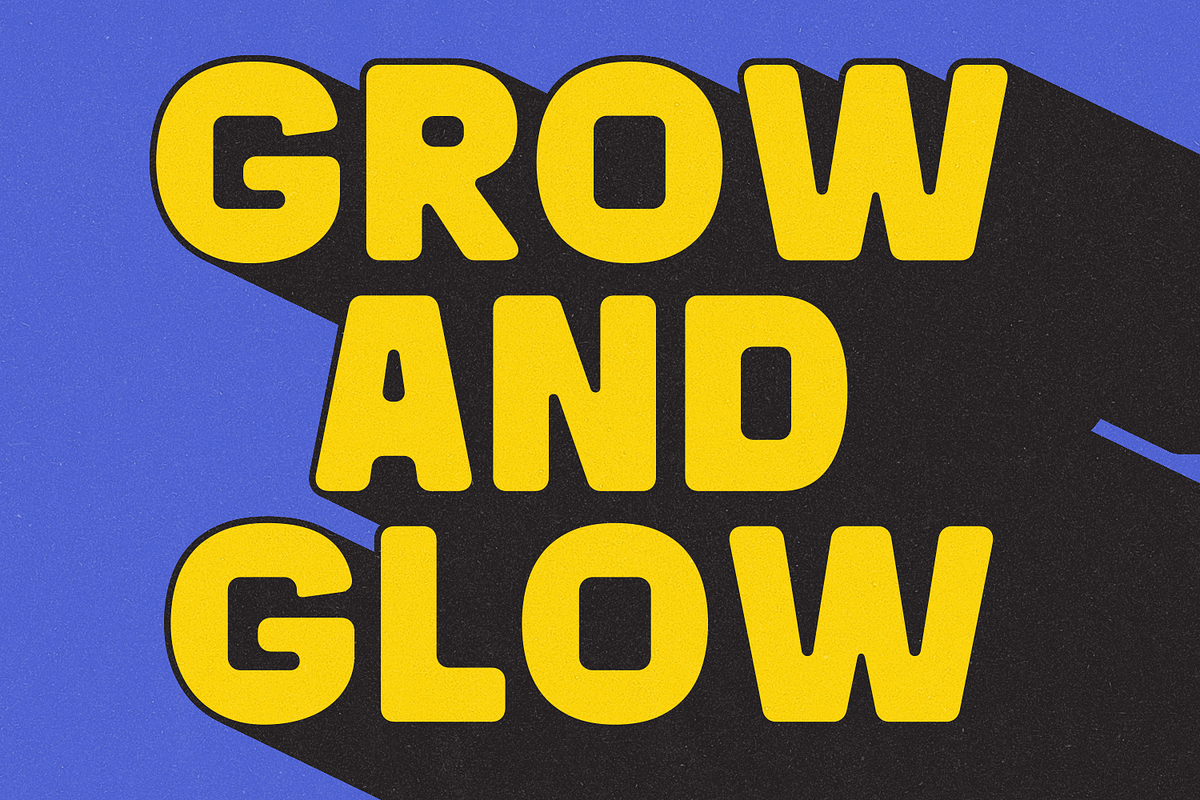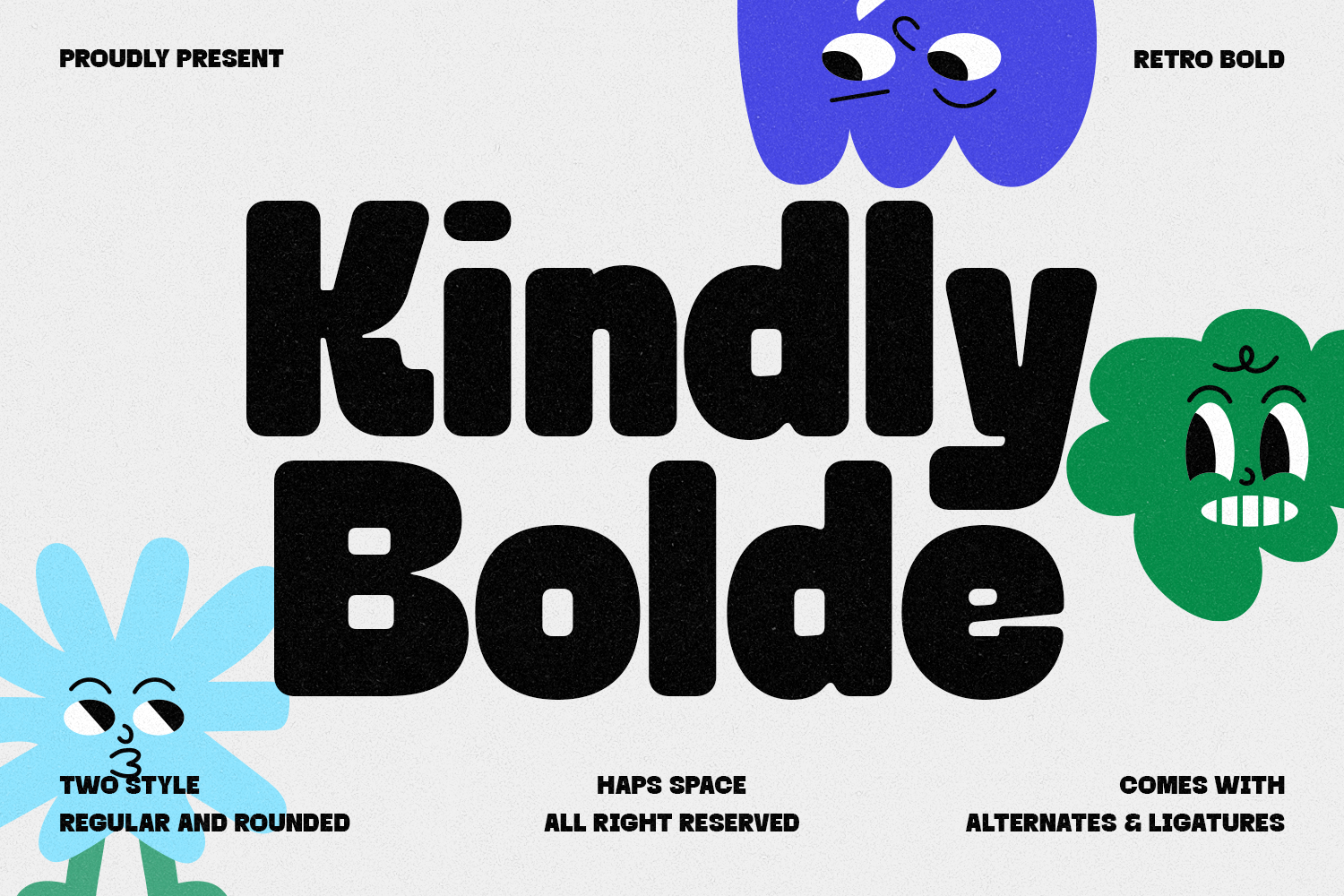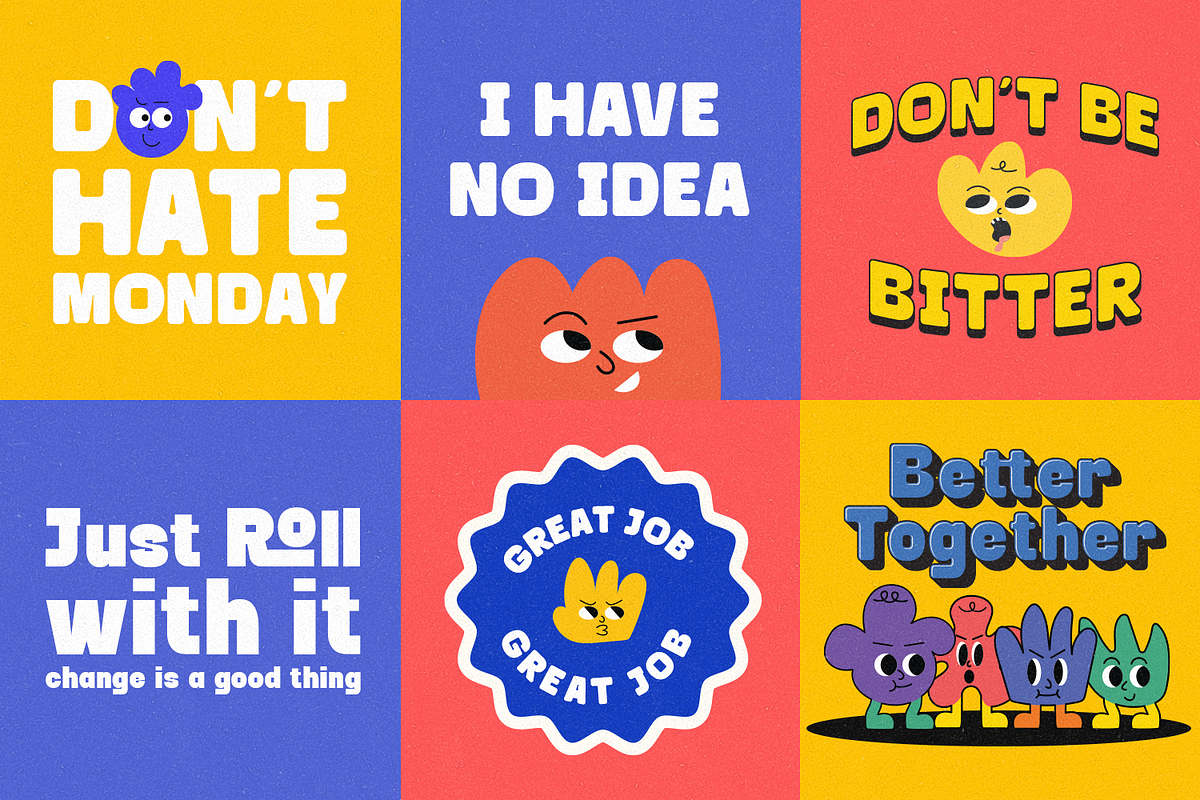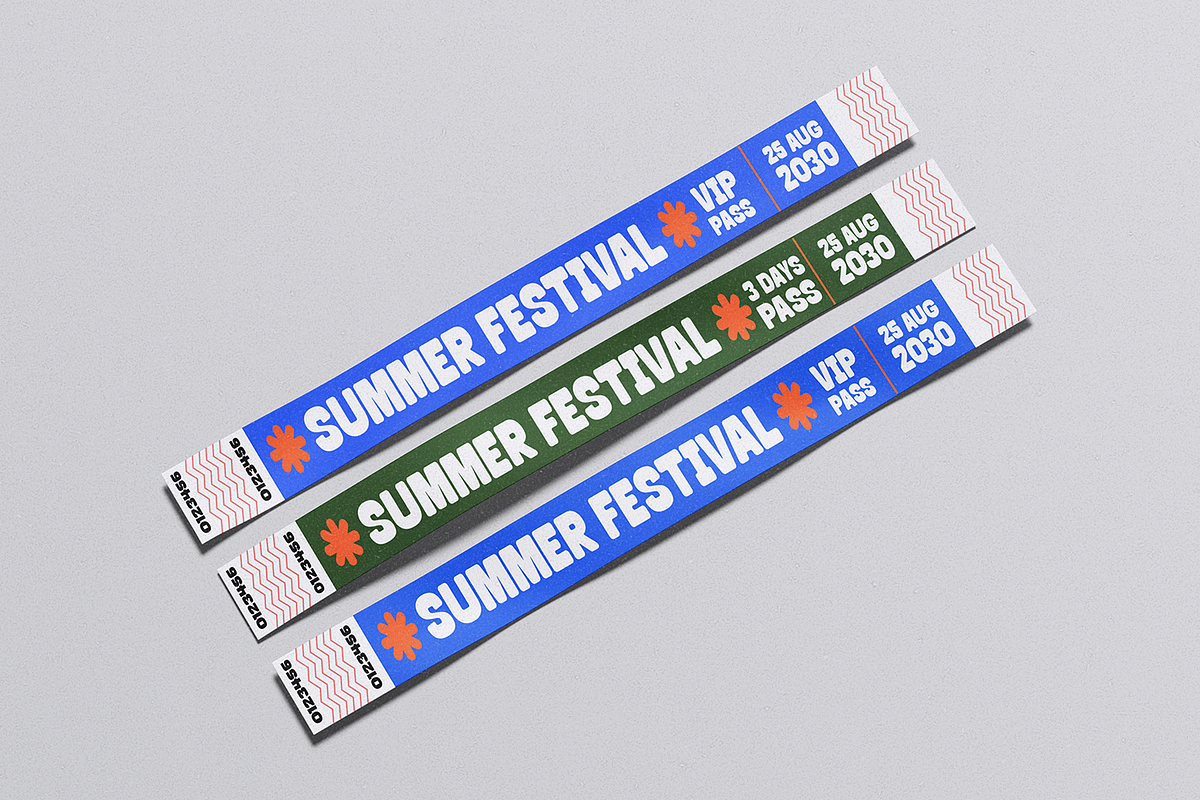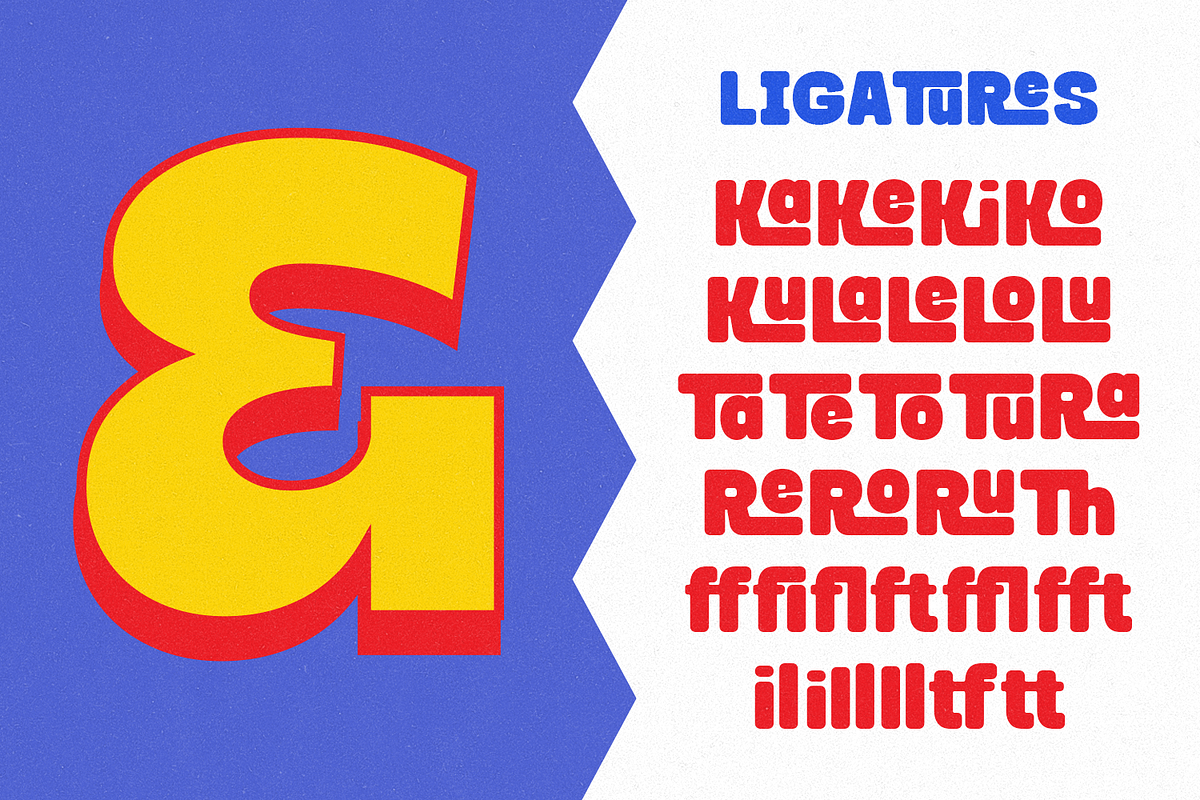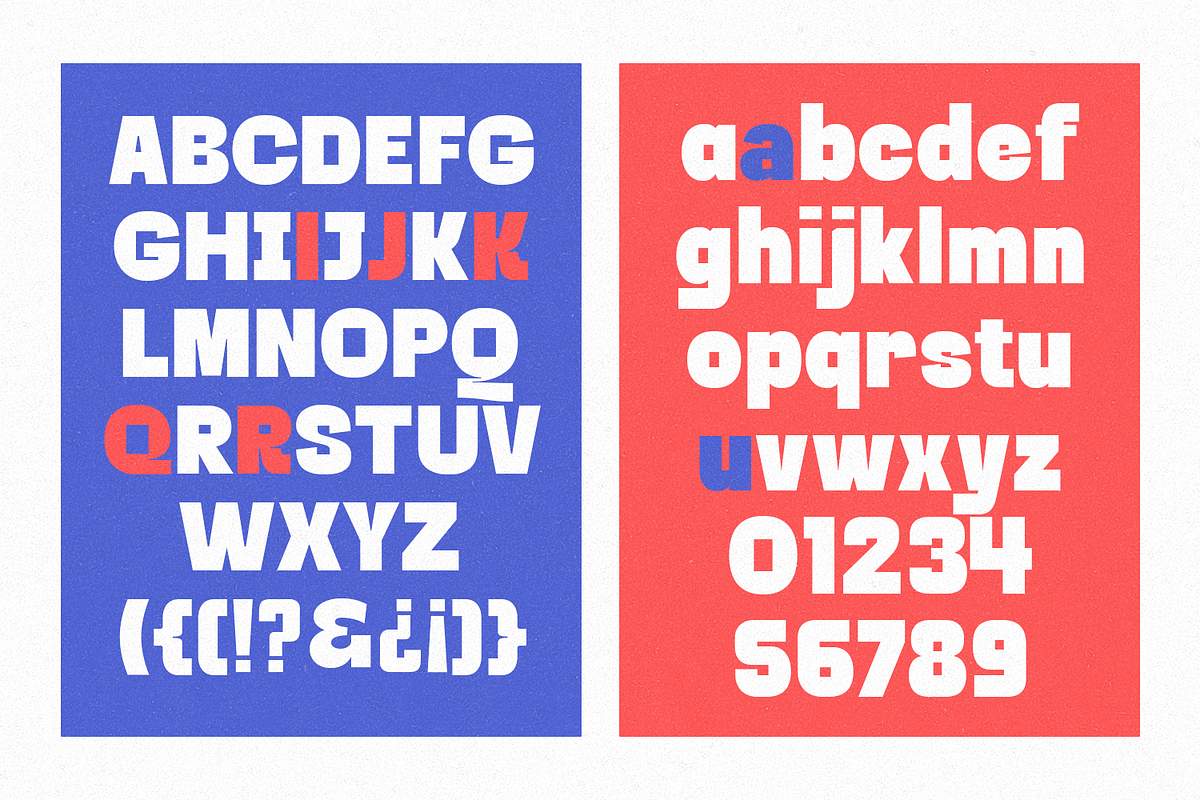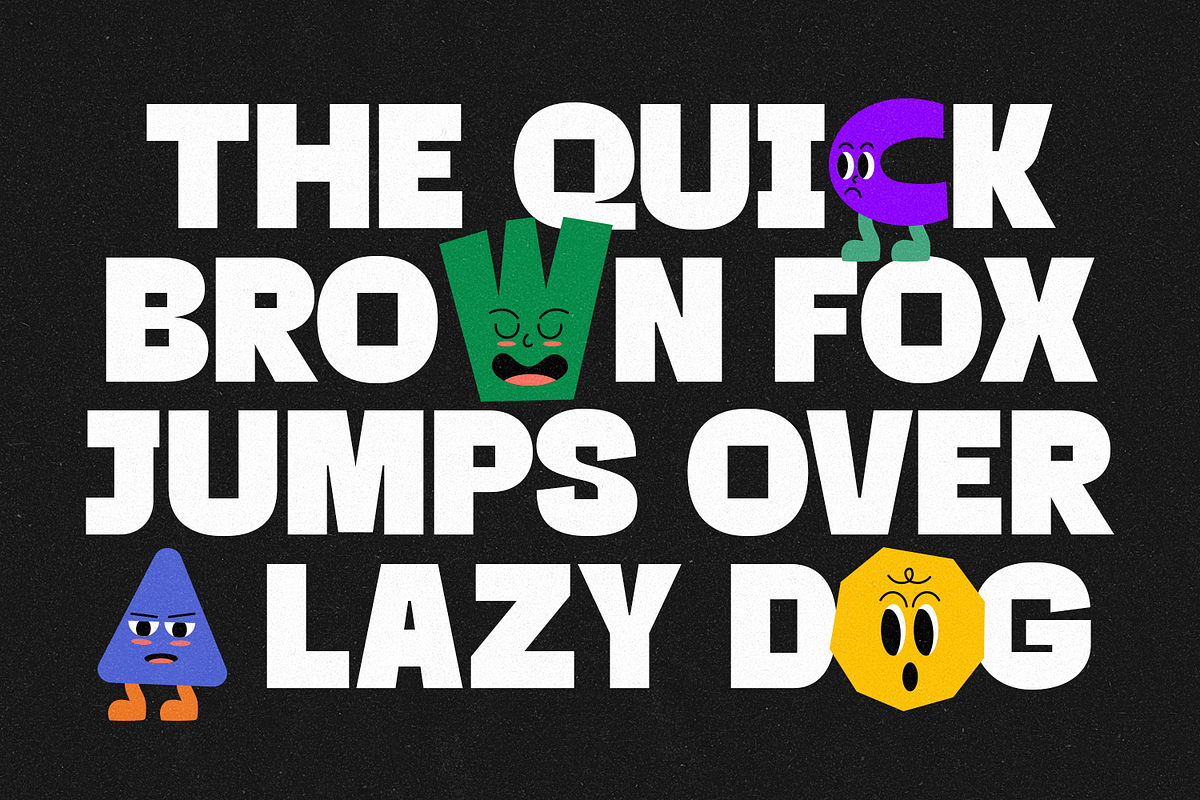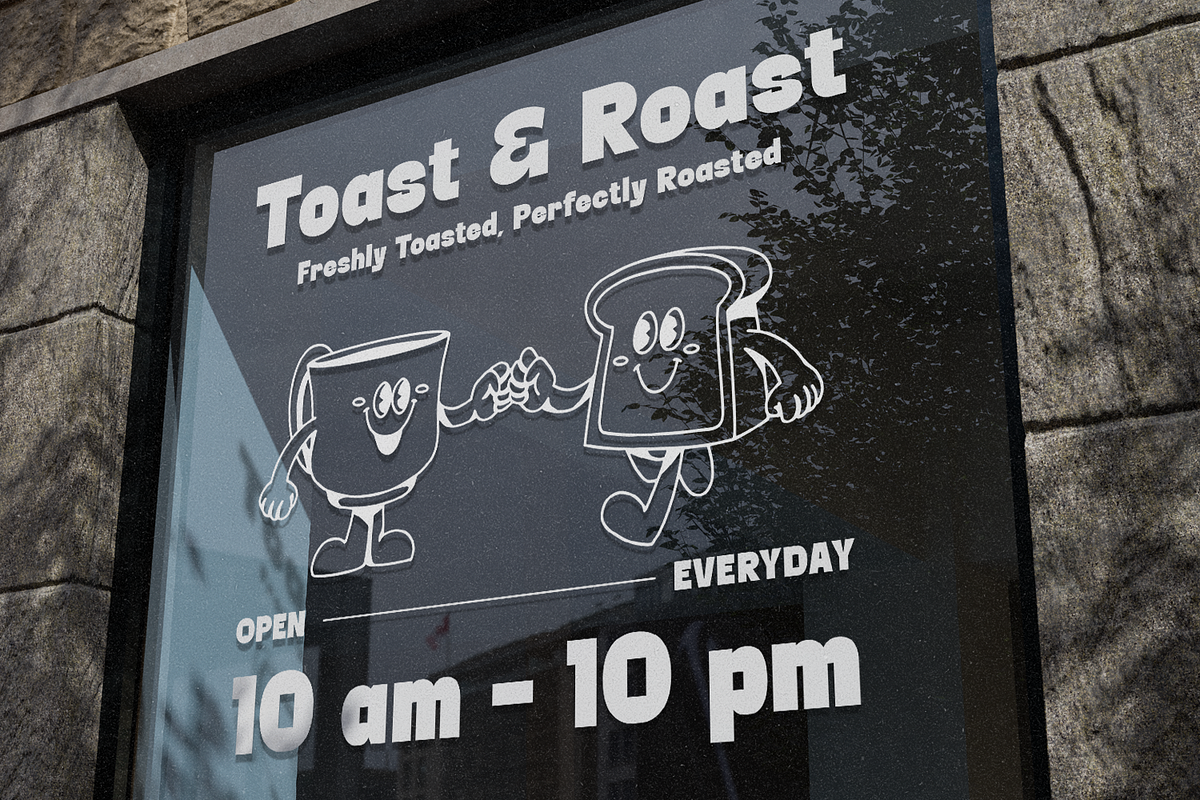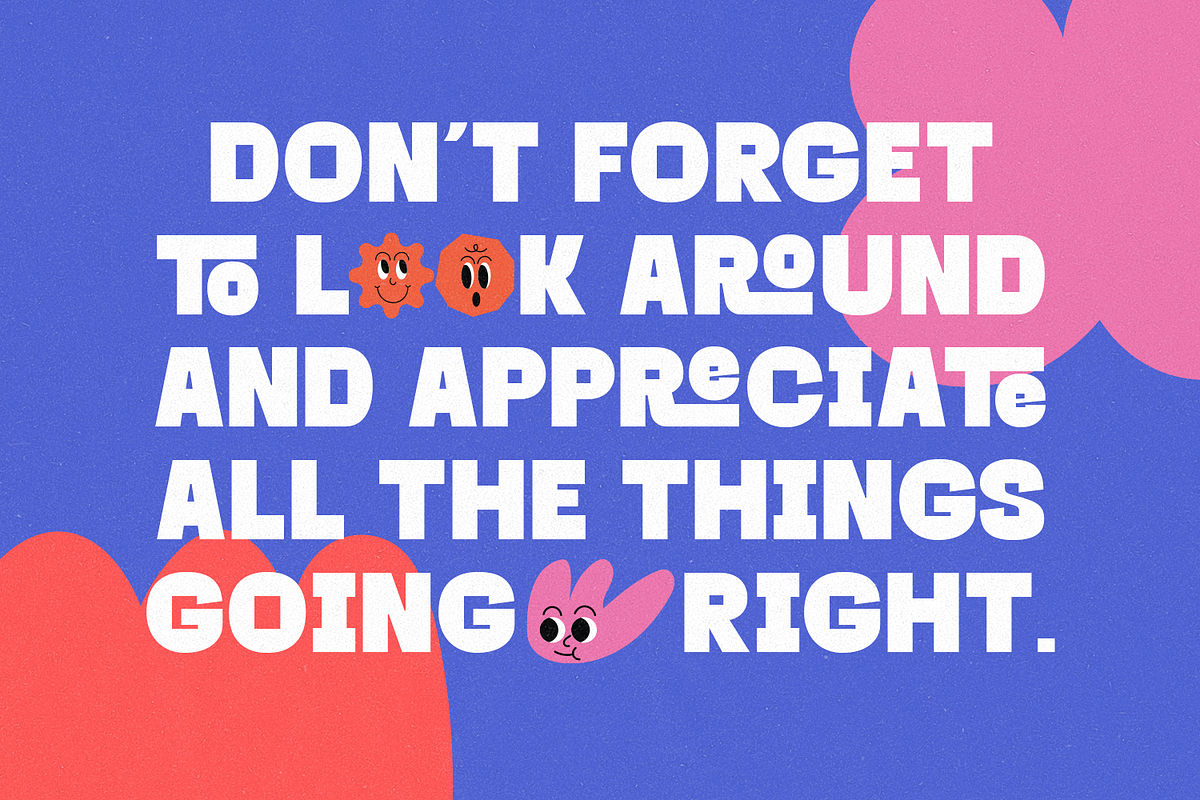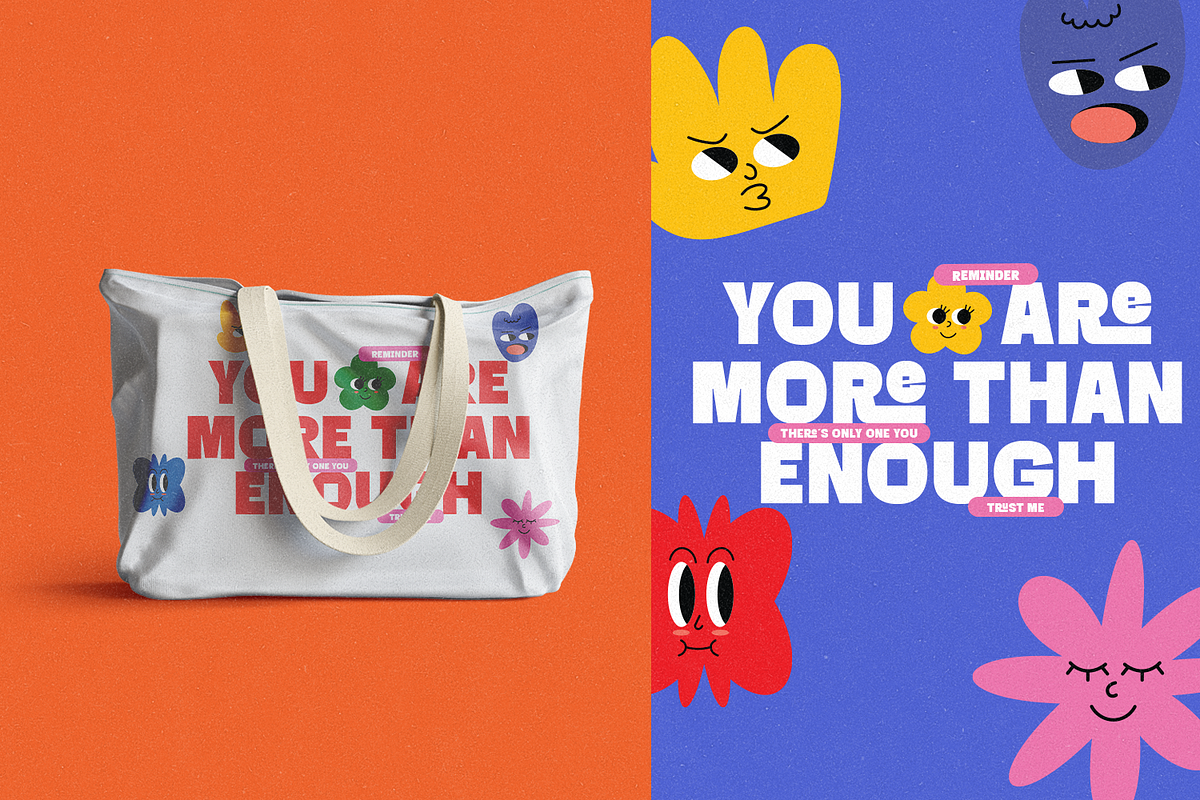
Kindly Bolde - Bold Retro Font
Kindly Bolde is a playful retro bold display font with soft, rounded shapes and a friendly personality. Inspired by vintage typography and modern cartoon aesthetics, this font delivers a cheerful and approachable vibe while remaining strong and eye-catching.
It features thick letterforms, smooth curves, and balanced proportions that make it perfect for headlines, posters, branding, packaging, kids designs, and fun editorial layouts. Kindly Bolde comes with two styles—regular and rounded—along with alternates and ligatures to add flexibility and character to your designs.
This font is ideal for projects that need to feel bold, joyful, nostalgic, and full of personality.